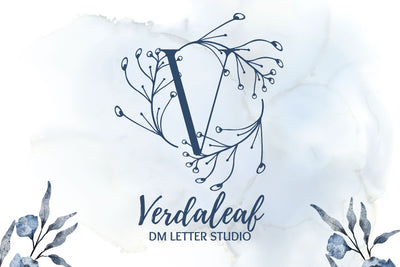
Verdaleaf Monogram
Verdaleaf Monogram – Elegant Serif Font with Lush Botanical Accents
Verdaleaf Monogram is a timeless serif monogram font wrapped in lush botanical elegance. Each uppercase letter is complemented by graceful leaf motifs, creating a refined and earthy style that feels both classic and organic. Ideal for weddings, branding, and creative Cricut crafts.
Monogram Serif Letters: Bold and elegant uppercase alphabet designed for impactful personalization.
Botanical Flourishes: Natural leaf embellishments lend a gentle, earthy charm to each character.
Perfect for Crafts & Decor: Ideal for logos, wedding invitations, thank-you cards, mugs, and more.